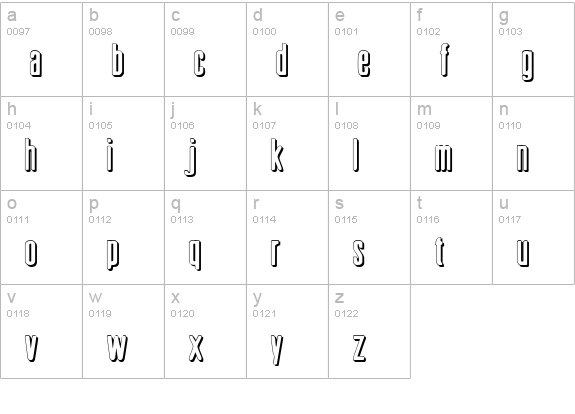
Sister Europe Shadow font is a modern and stylish typeface that exudes elegance and sophistication. With its unique shadow effect, this font adds a touch of depth and dimension to any design project. Perfect for headlines, titles, logos, and more, Sister Europe Shadow font is sure to make a statement. What's even better is that Sister Europe Shadow font is completely free to download at FontsMarket.com. Whether you're a designer looking to add a creative twist to your work or a business owner wanting to elevate your branding, this font is the perfect choice. Don't miss out on the opportunity to enhance your designs with the beauty and versatility of Sister Europe Shadow font. Download it today and start creating stunning visuals that truly stand out.